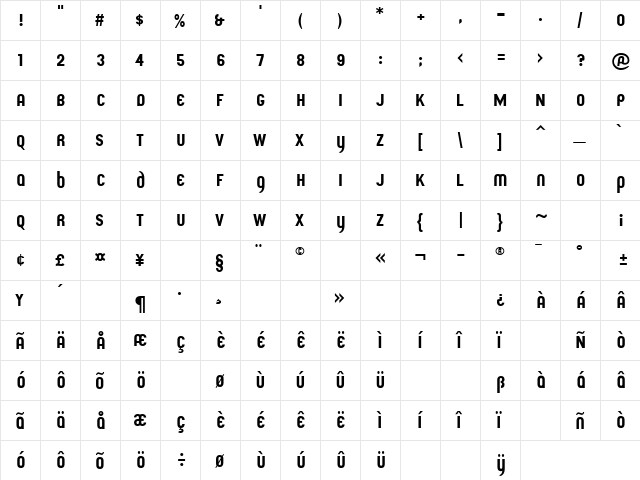
Udo Regular
Design Context for Udo Typeface
Udo offers clean, dependable letterforms without strong stylistic allegiance, making it a practical choice for designers who need flexibility.